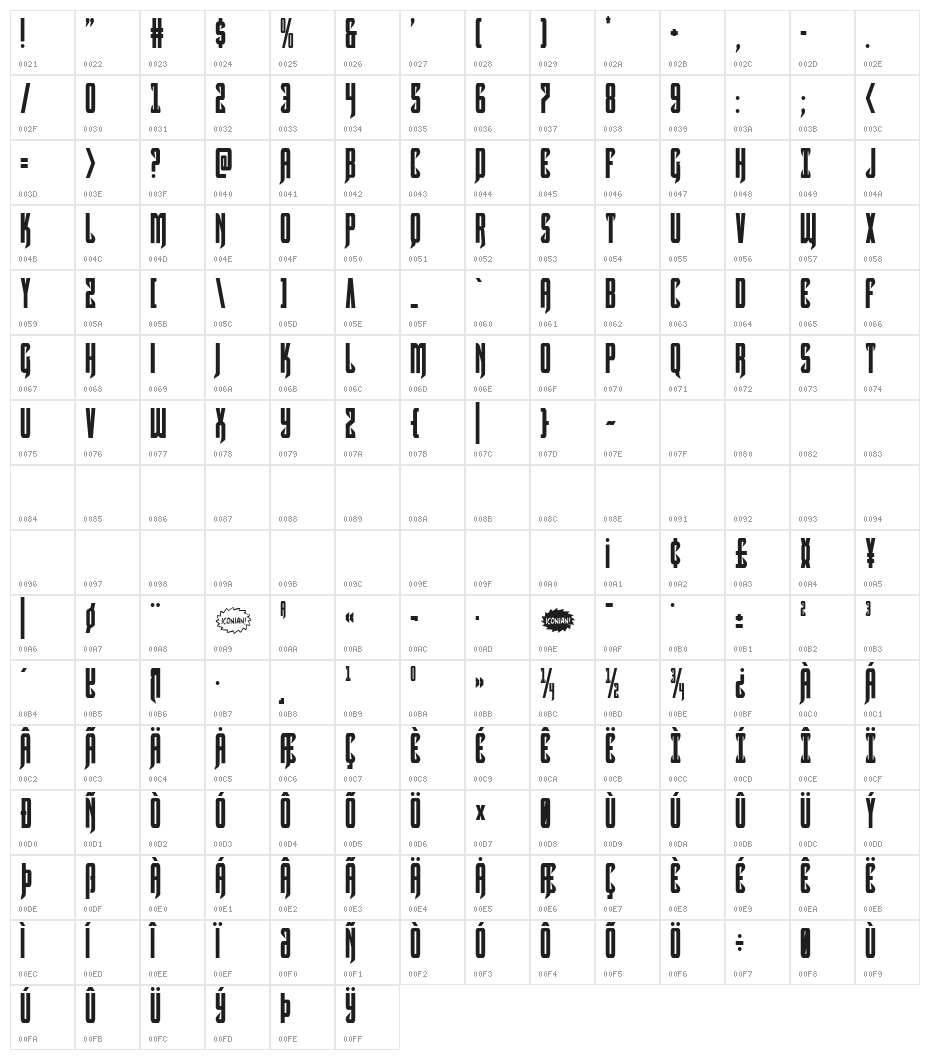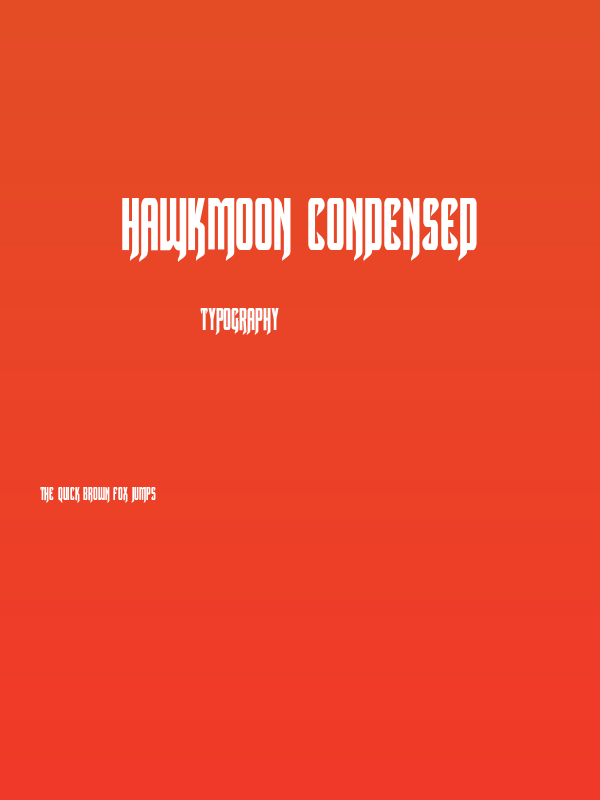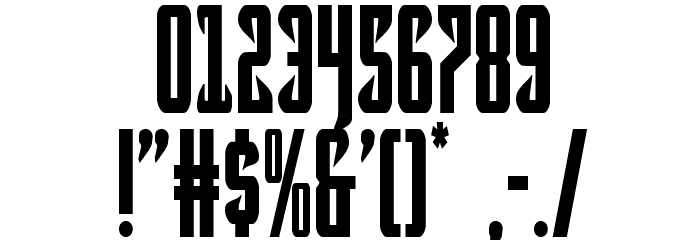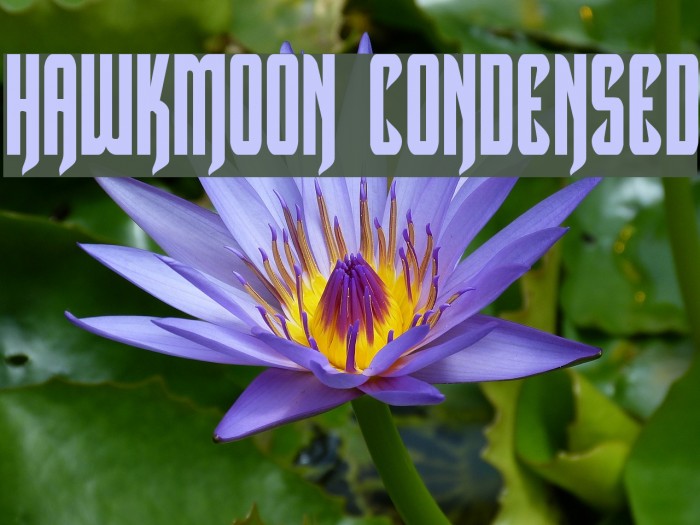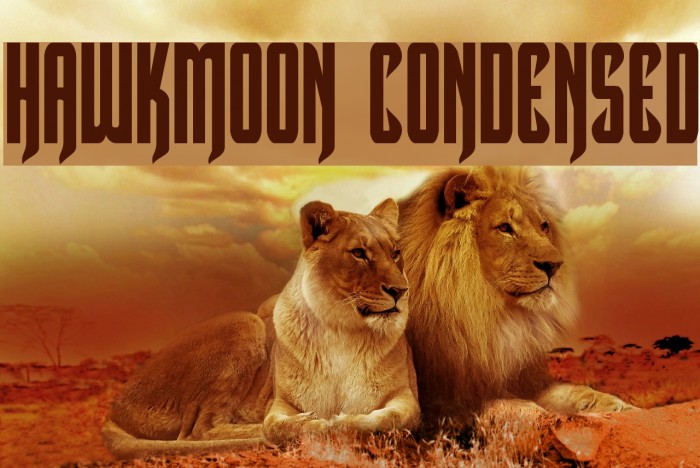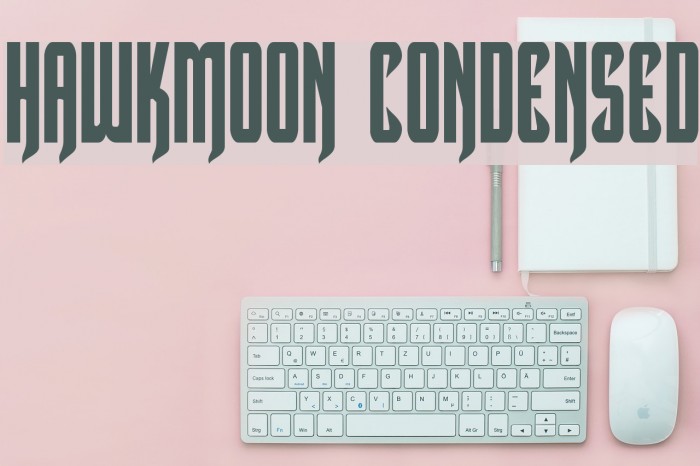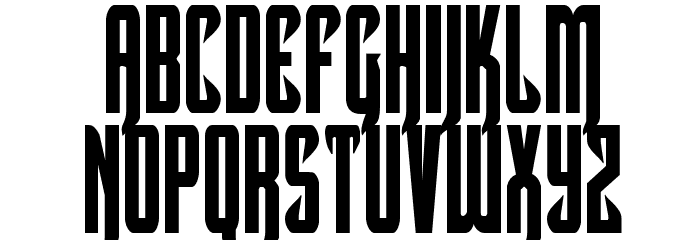
Hawkmoon Condensed Font
Hawkmoon Condensed Description
This font features a bold and condensed style with a strong presence. The characters are tall and narrow, giving it a distinctive and impactful look. The strokes are thick and consistent, providing a uniform appearance across all characters. The uppercase letters are particularly striking, with sharp angles and a geometric feel. The numbers and special characters maintain the same boldness and condensed form, ensuring a cohesive design. This font is ideal for making a statement and grabbing attention.
| Proposed Projects | Ideal for posters, headlines, branding, and any design that requires a bold statement. |